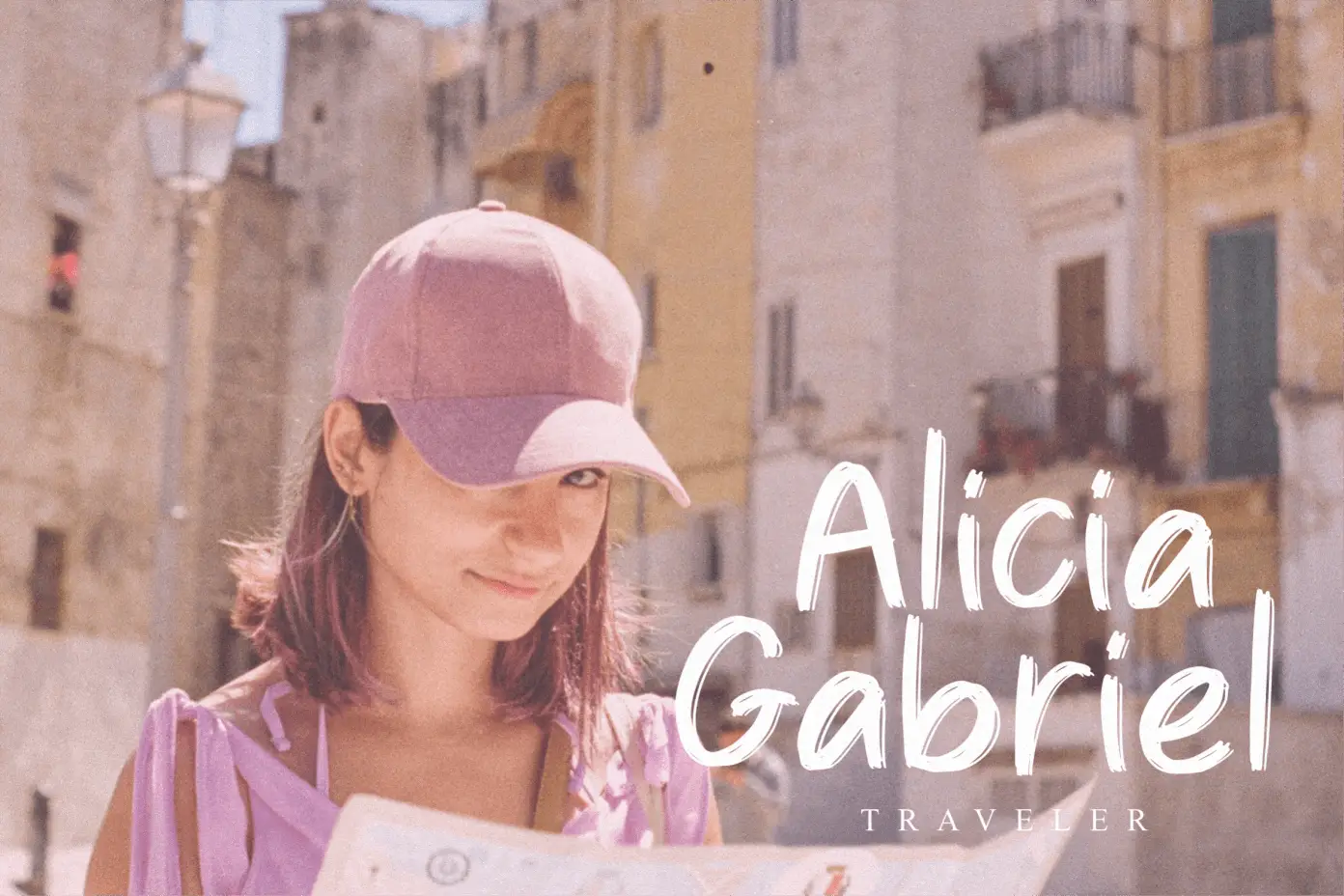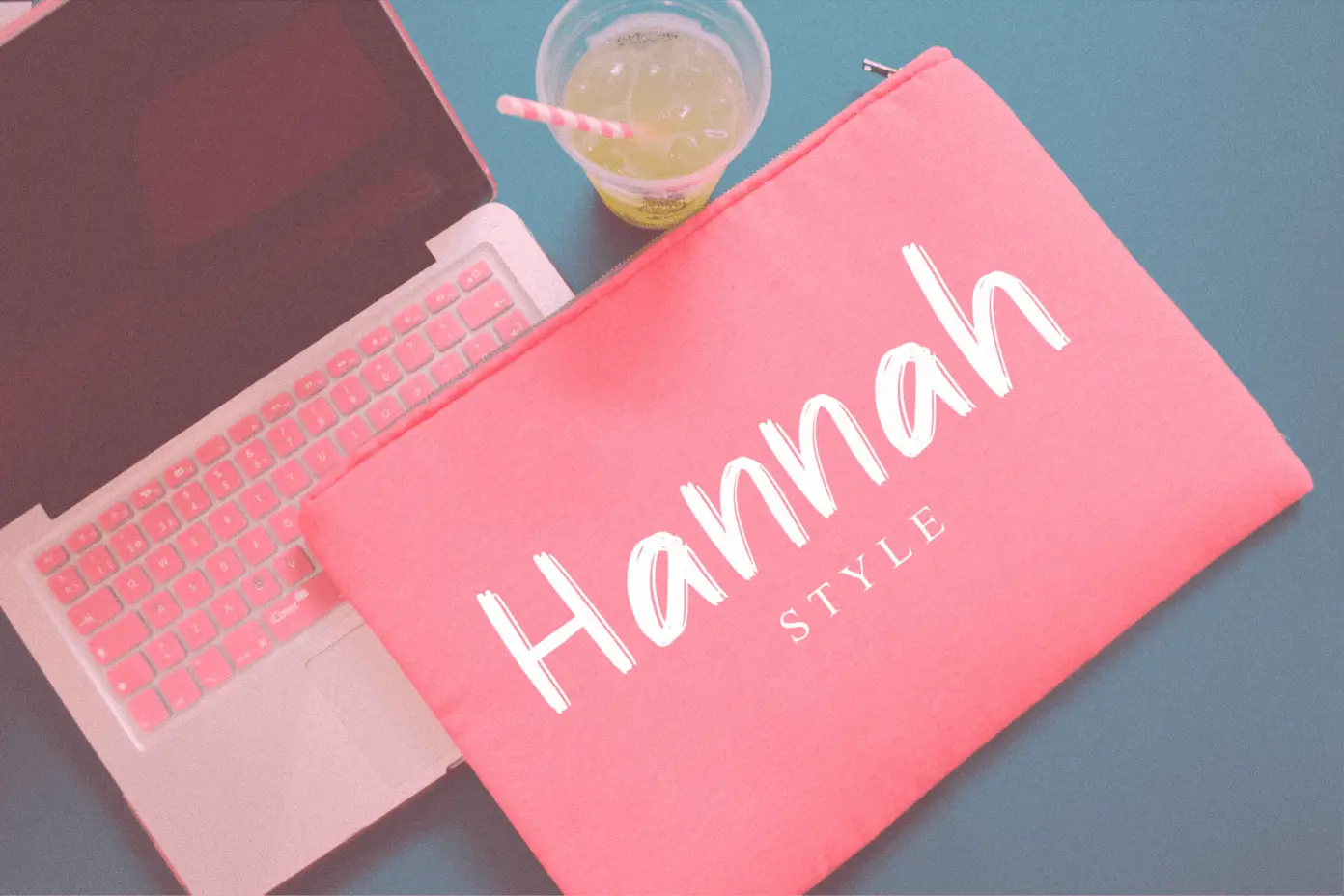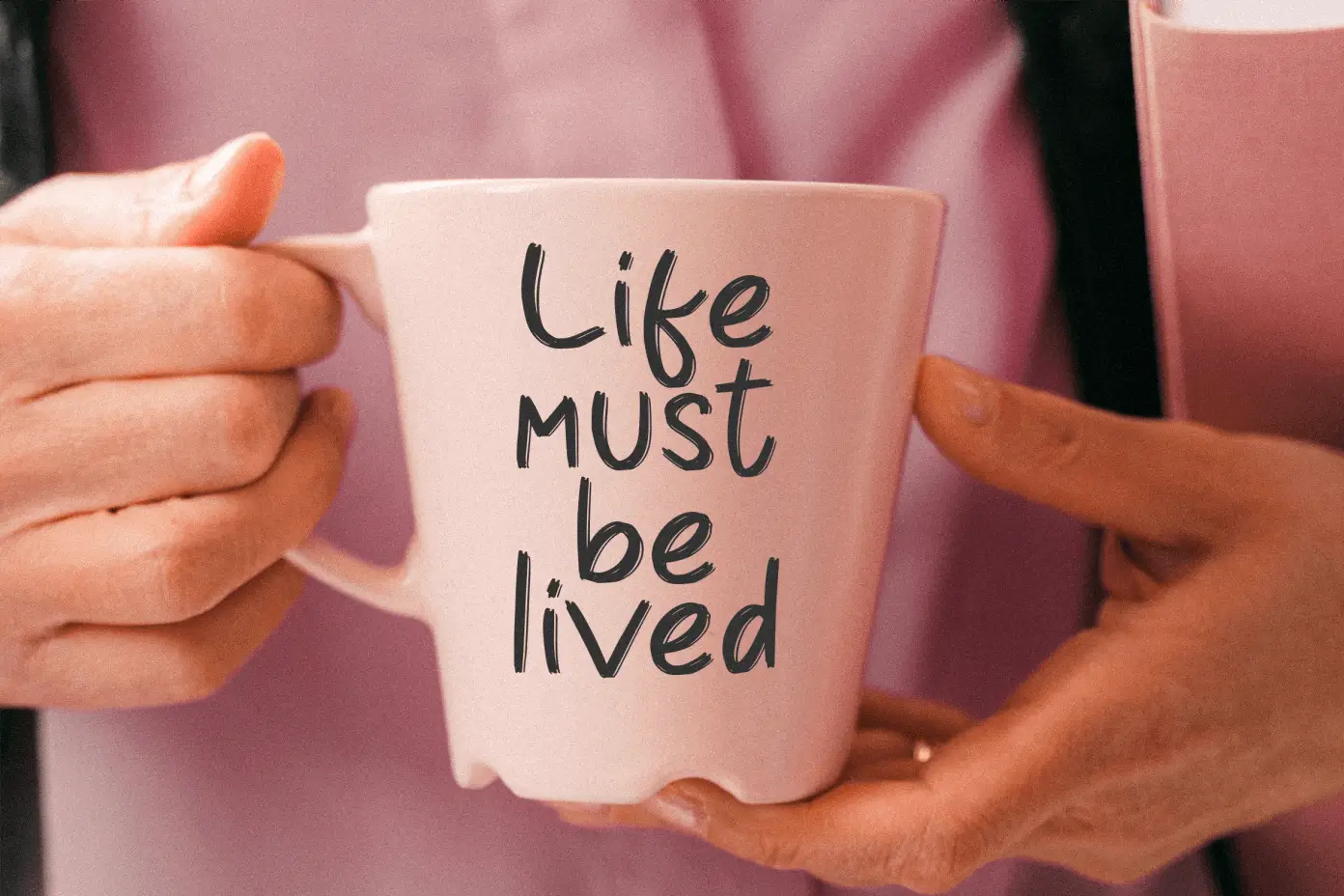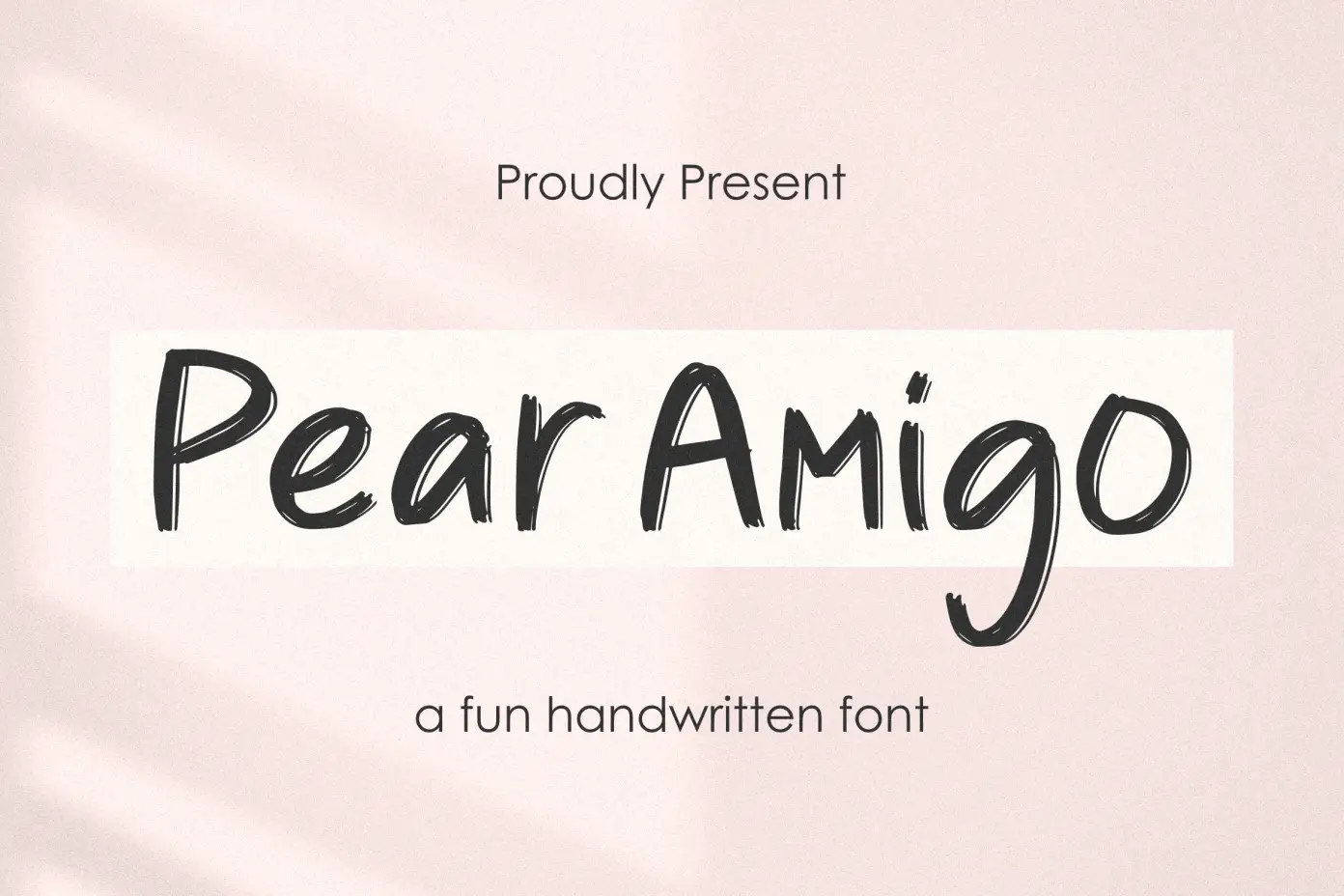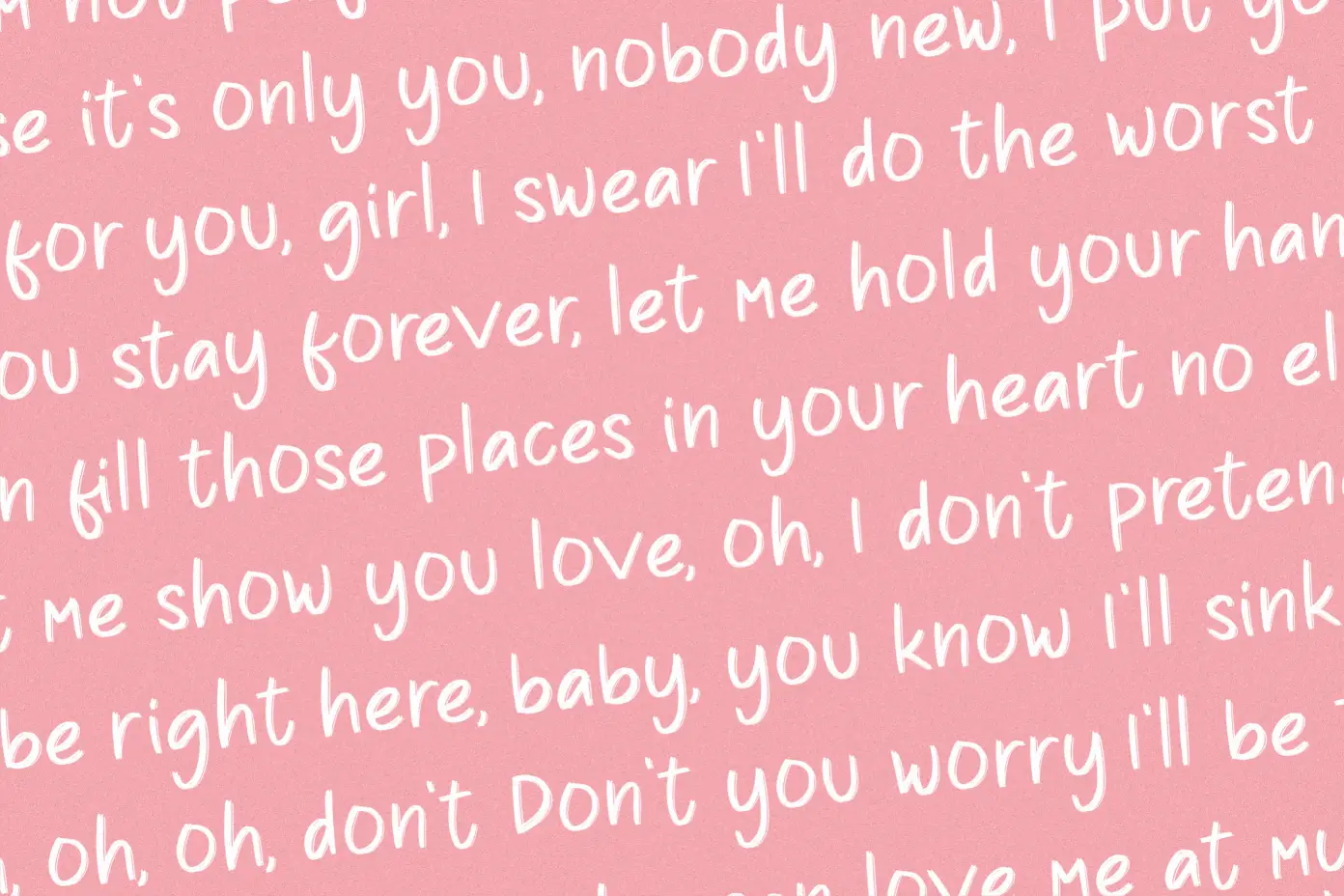
Pear Amigo Brush Font
The Pear Amigo Brush Font is a stunning script typeface that brings a personal touch to your designs. With its fluid strokes and artistic flair, this font is perfect for creating eye-catching branding, logos, and promotional materials.
• Stylish brush script design
• Easy to read in both large and small sizes
• Ideal for branding and logo design
• Great for invitations, posters, and social media graphics
• Use in combination with sans-serif fonts for a balanced look